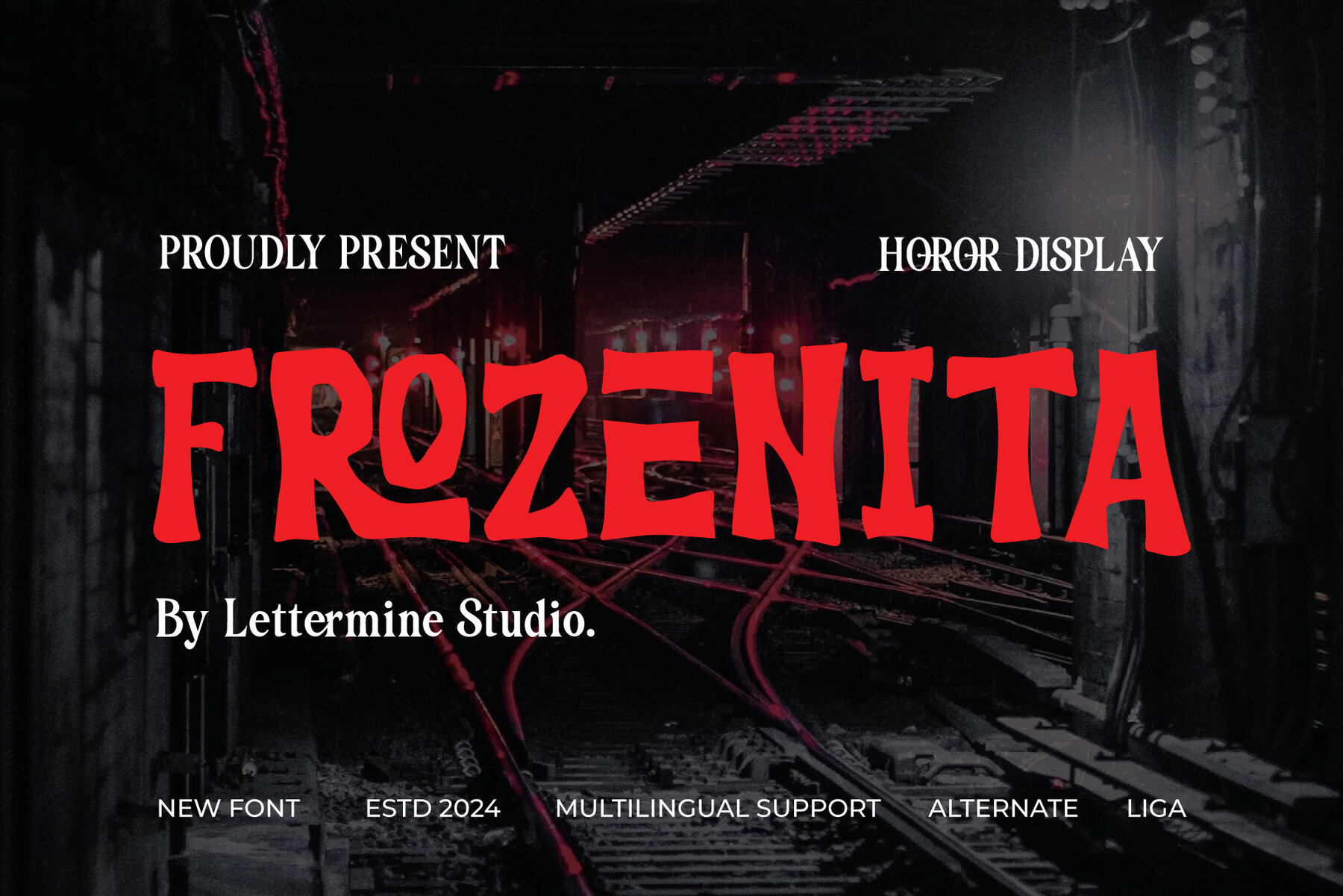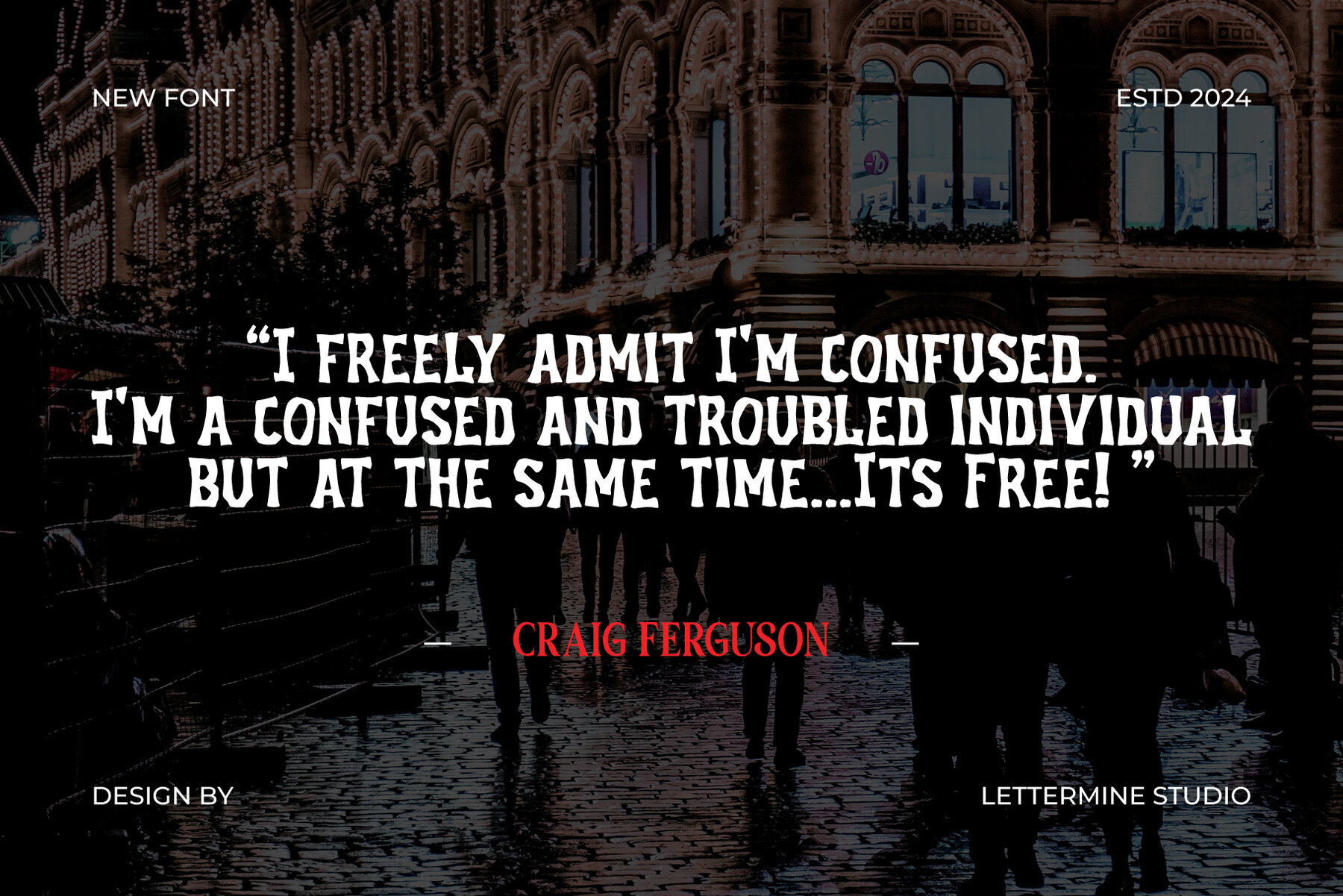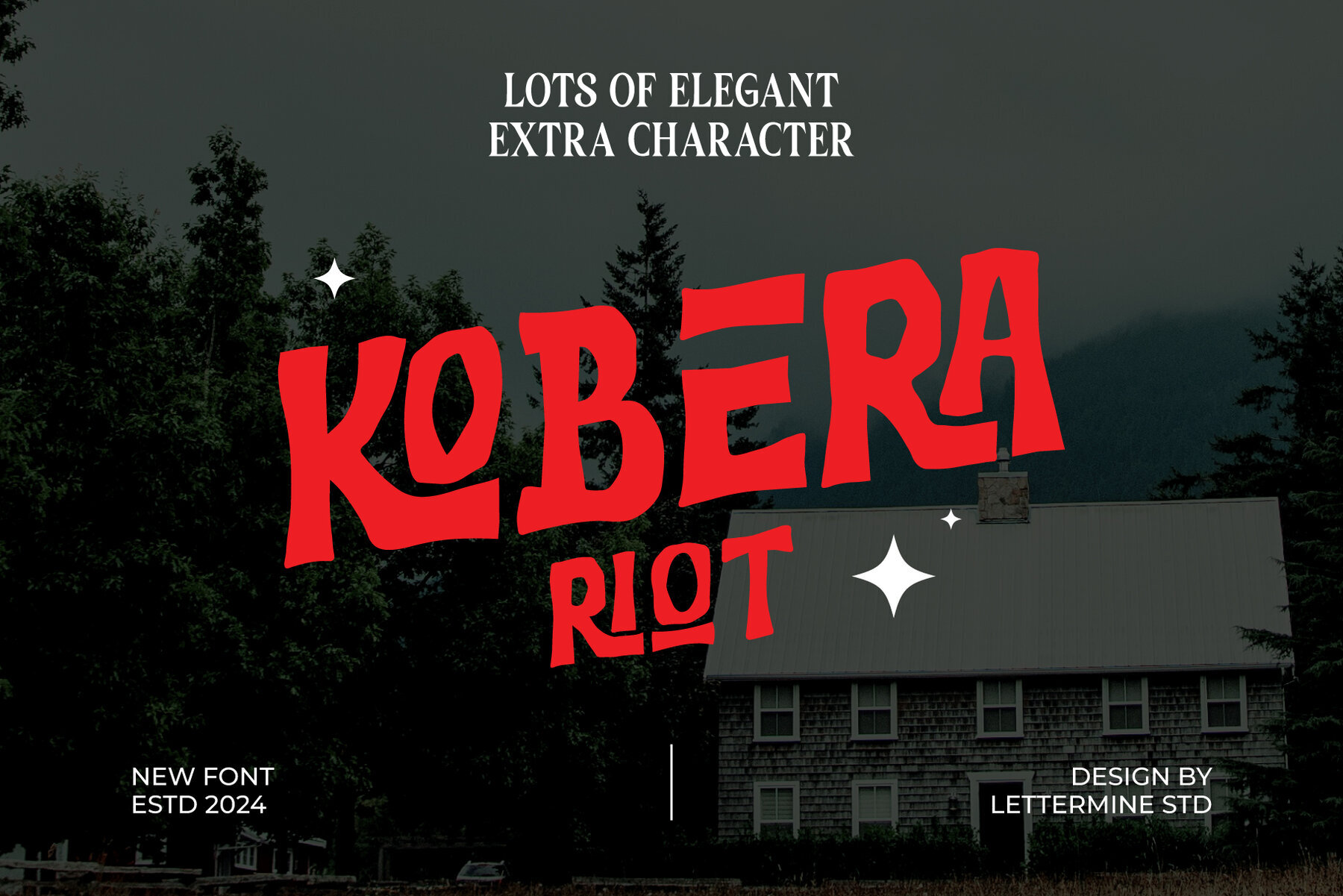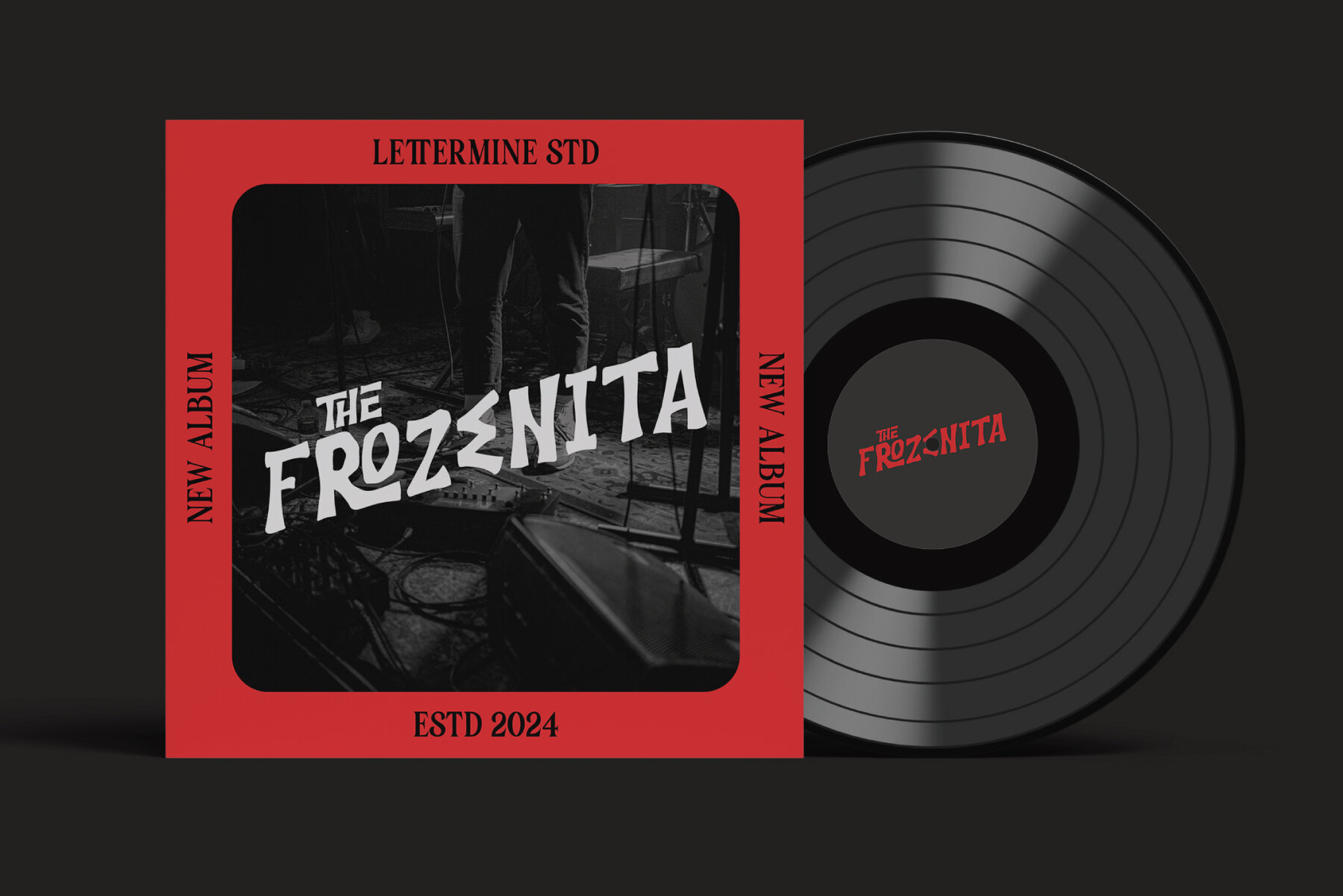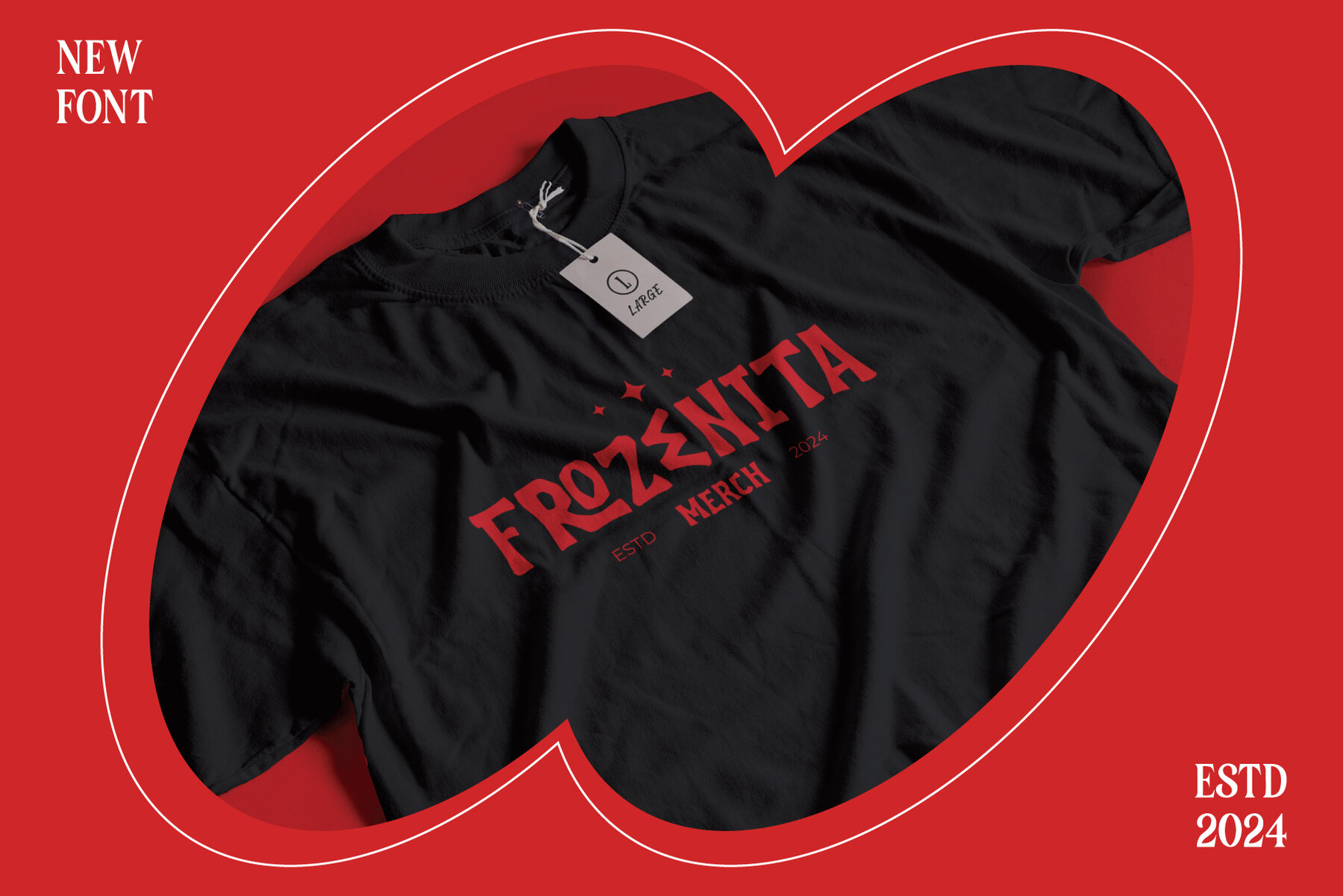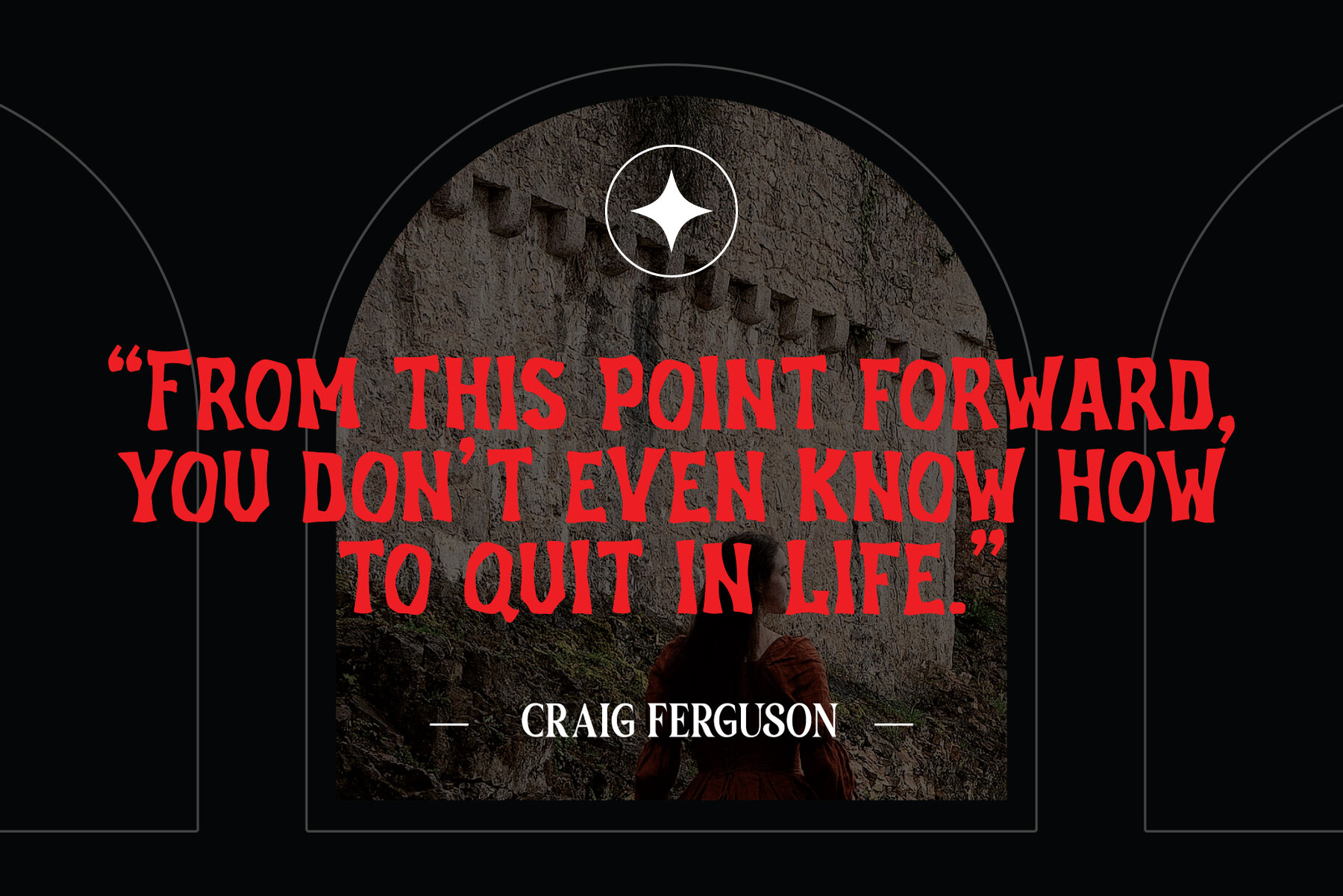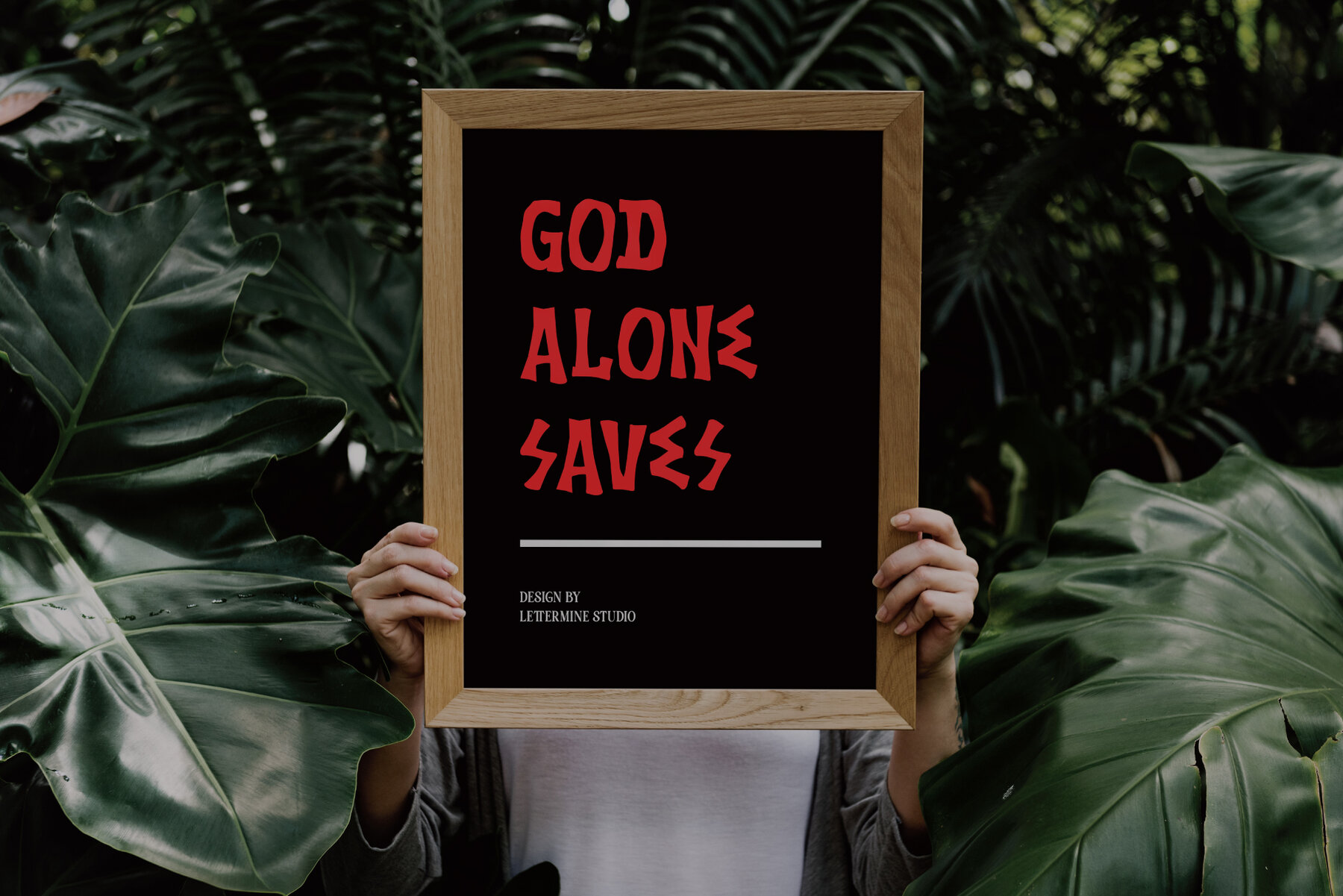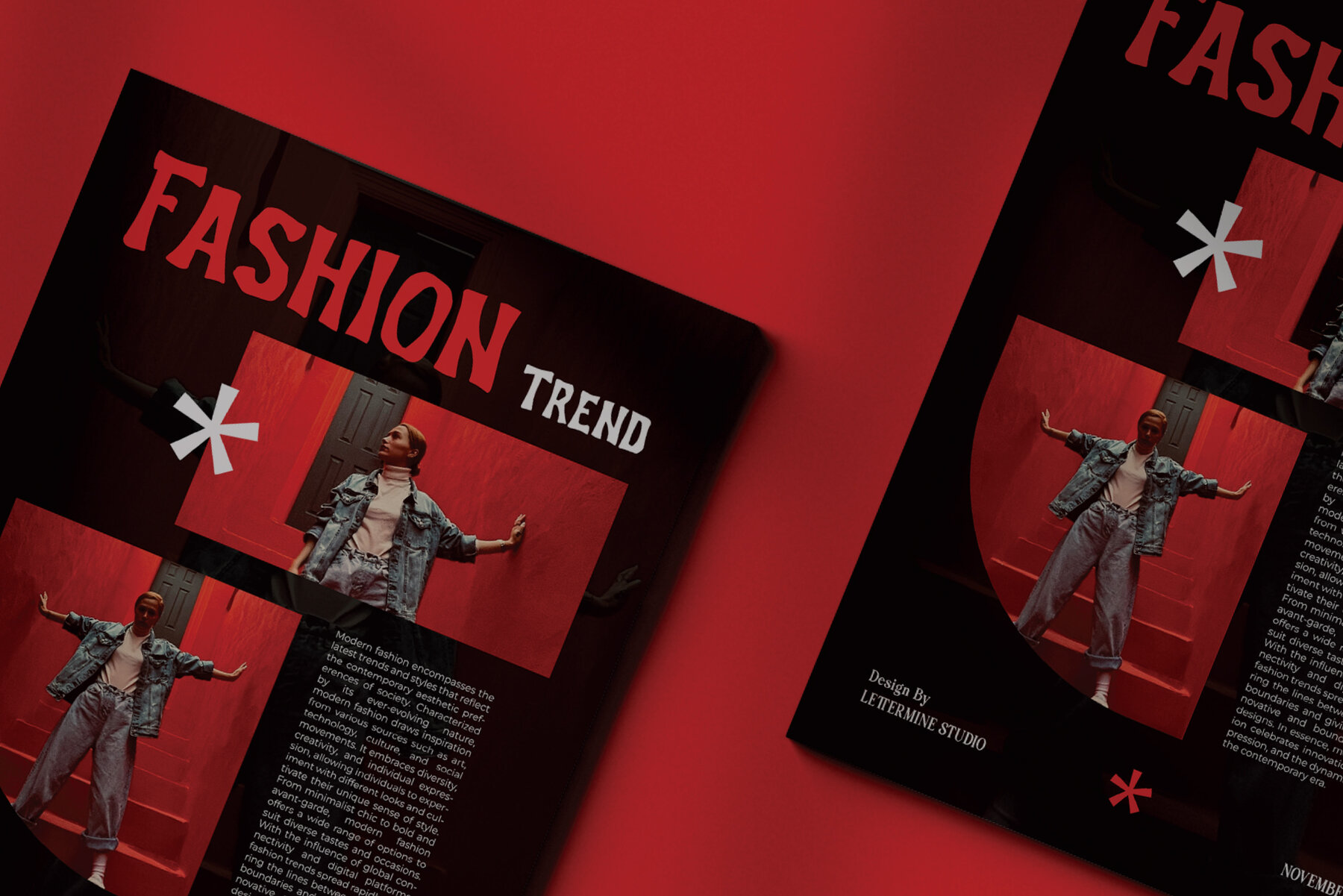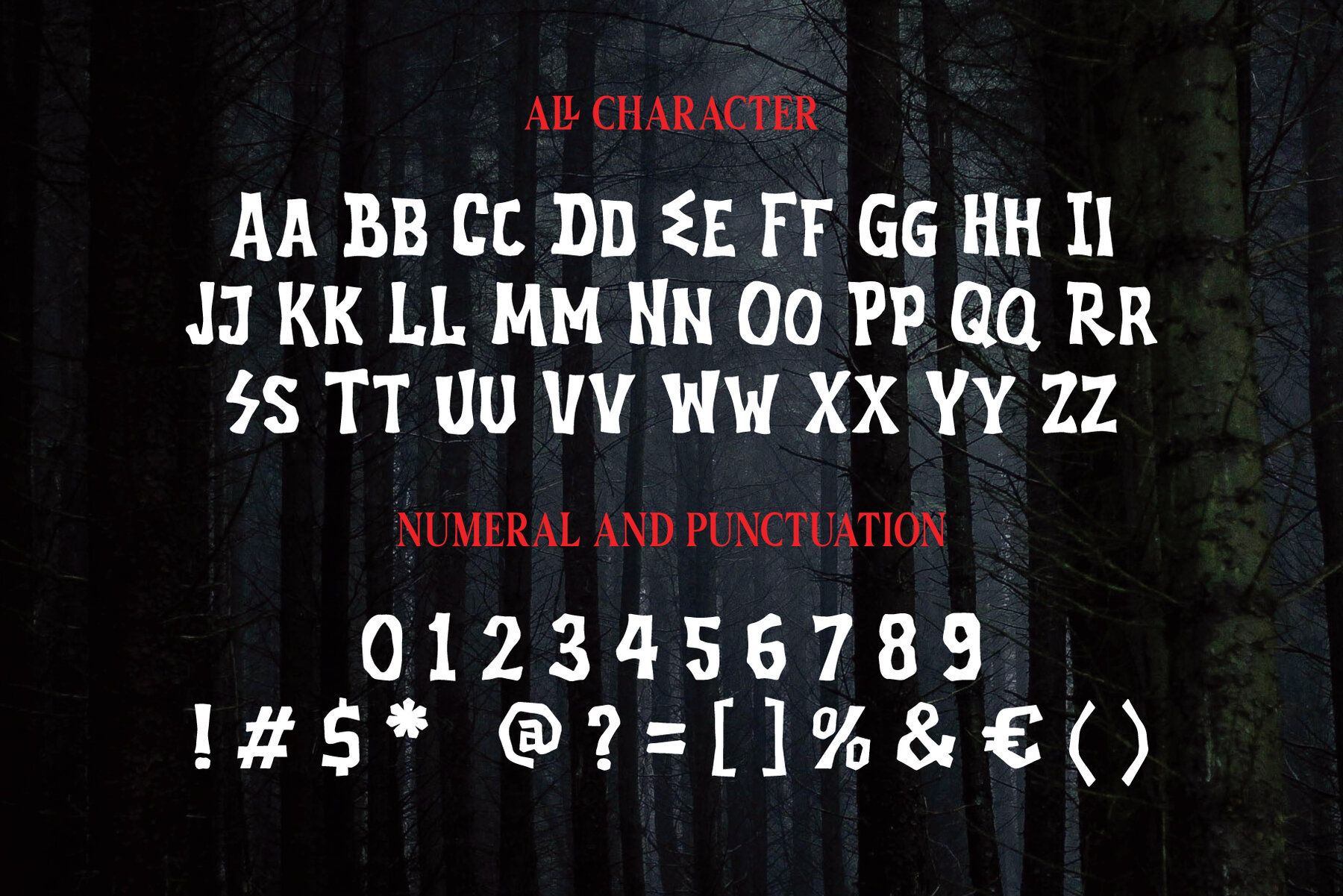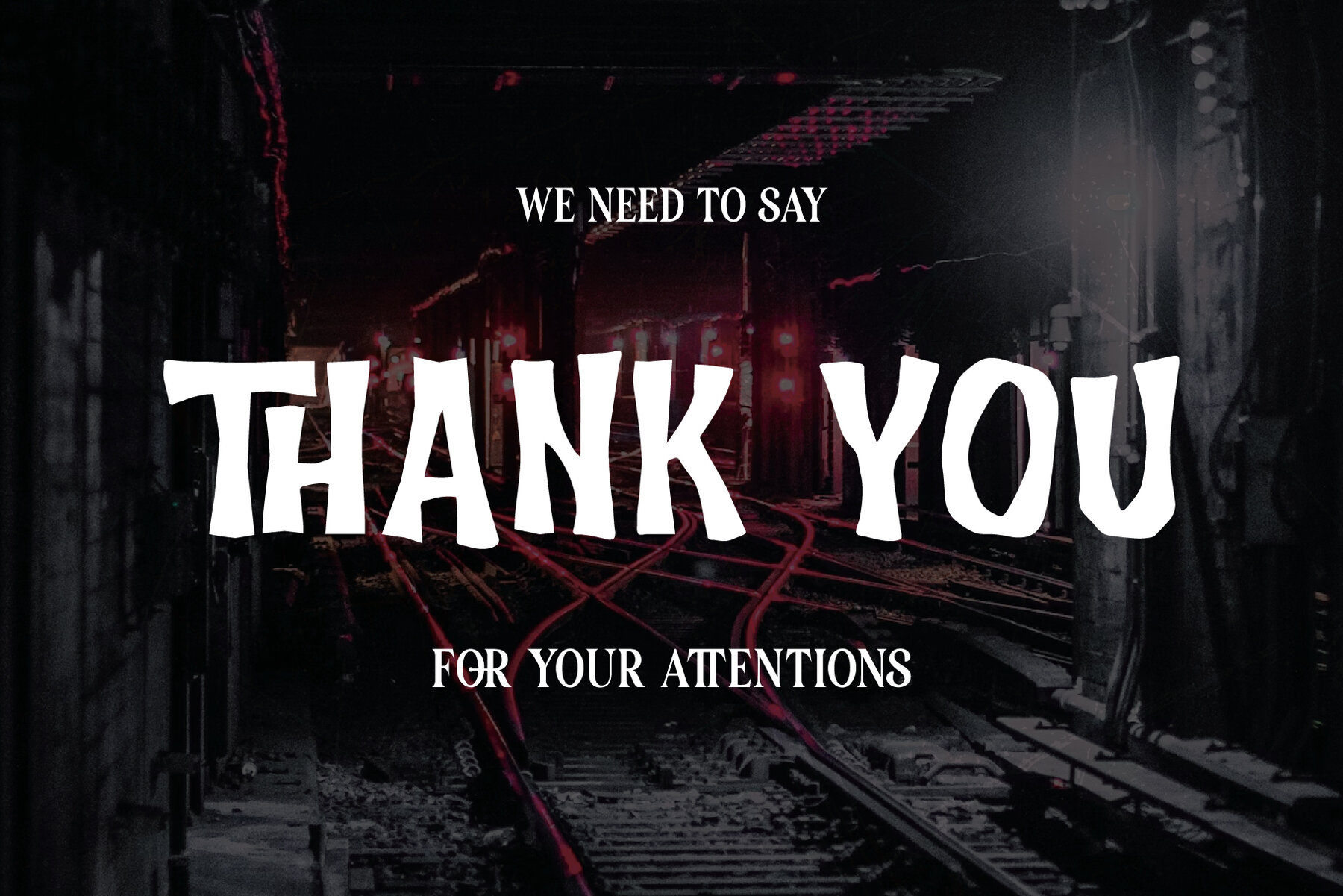
Frozenita Font
Frozenita Regular
Frozenita offers a captivating blend of horror-inspired aesthetics with the sleek charm of handwritten design. Crafted with meticulous detail, this font is designed to add a chilling touch to your creative projects. Don't miss the opportunity to add an element of horror and intrigue to your designs. Get Frozenita today and unleash your creativity like never before! Copyright © 2024 by Lettermine. All rights reserved. No part of this font may be reproduced or resold.Frozenita: Chilling Horror Handwriting Font